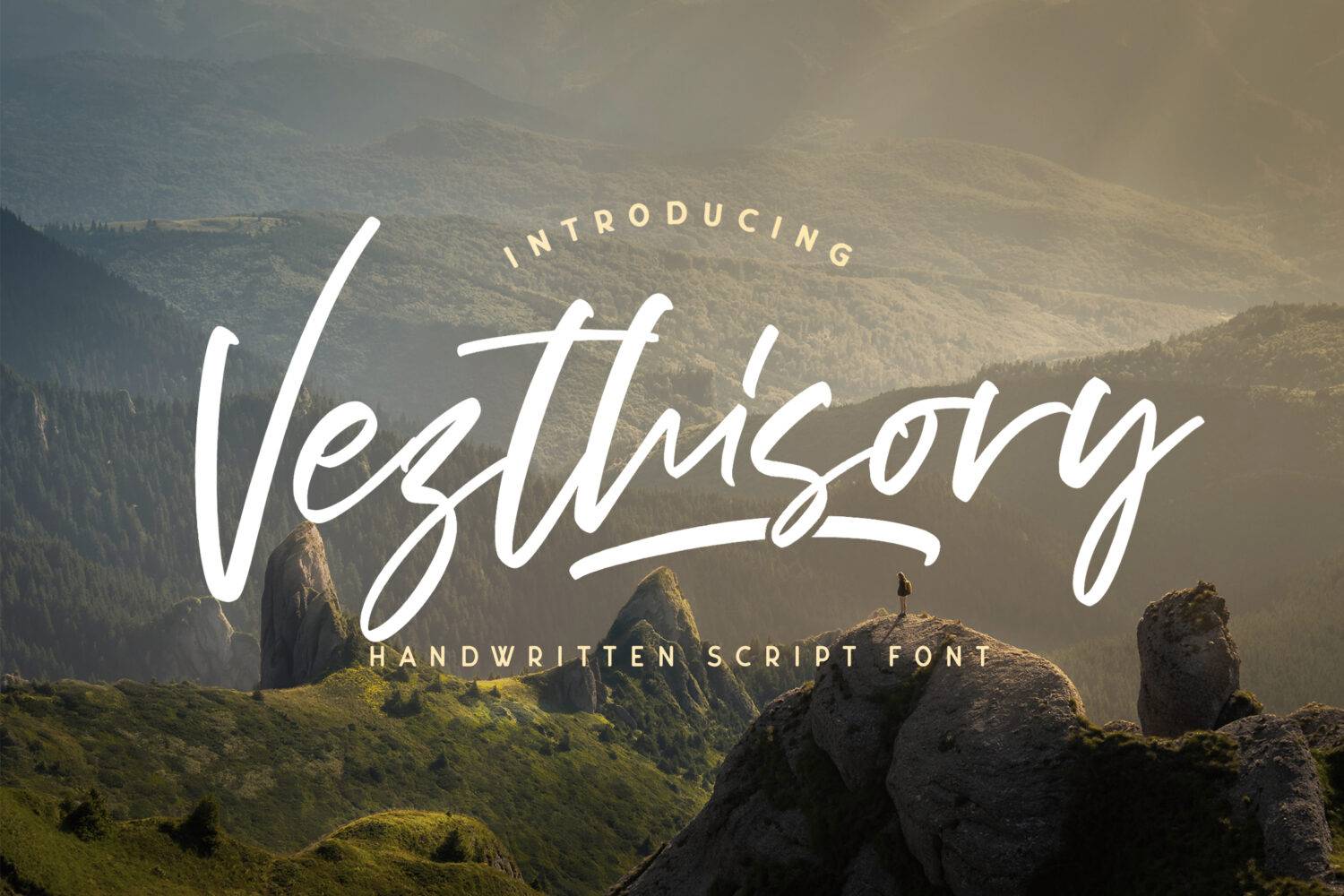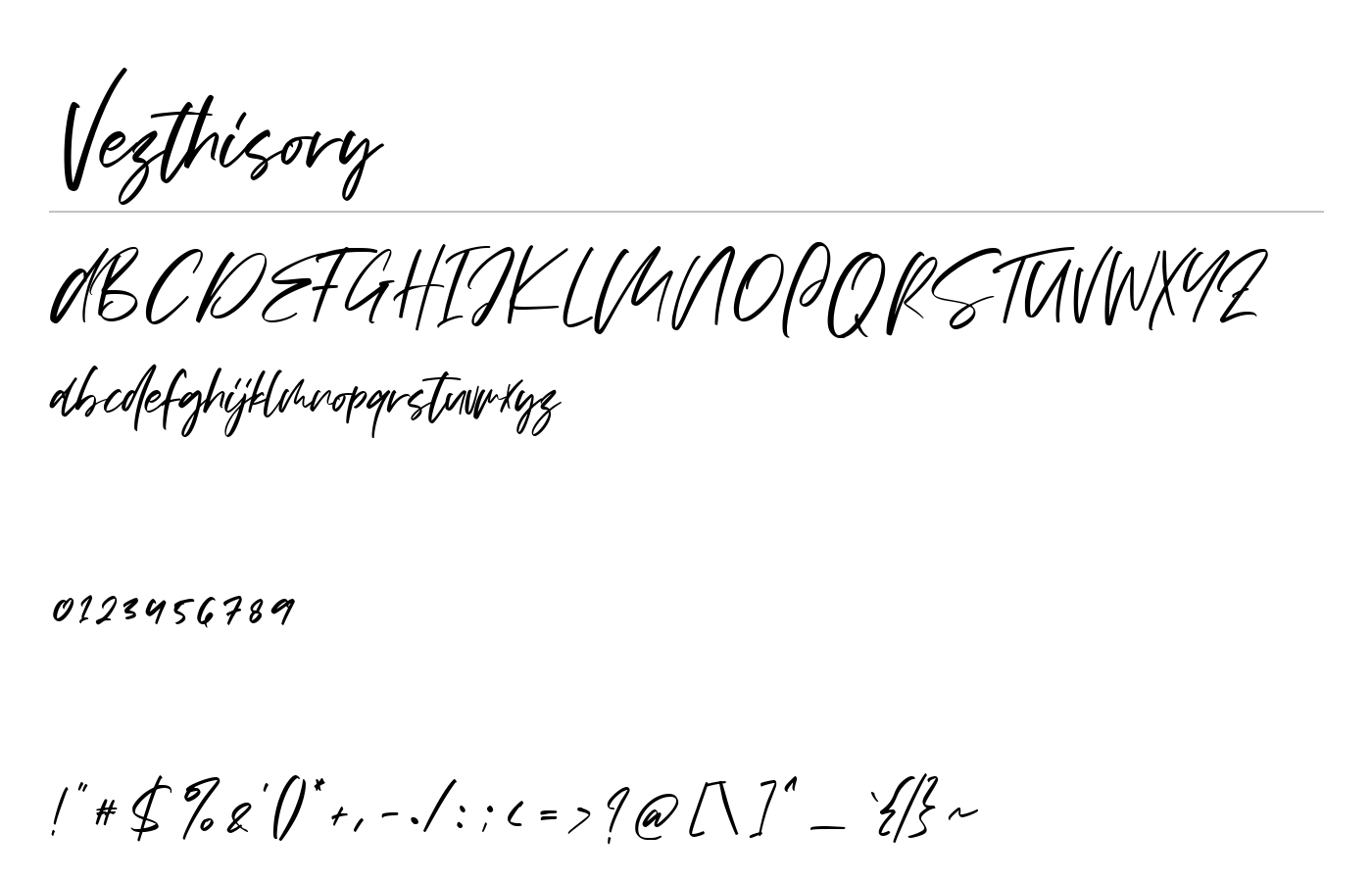
Vezthisory is a lively, handwritten script font featuring a casual yet elegant flow with varied stroke thicknesses that create a dynamic, personal touch. Its tall, narrow letterforms and slightly irregular shapes give it an authentic, modern hand-drawn feel, making it perfect for creative projects, branding, or invitations that seek a stylish but approachable look. This font works well in logos, headlines, and social media designs where a warm, expressive personality is desired.
Vezthisory Font
About Vezthisory Font